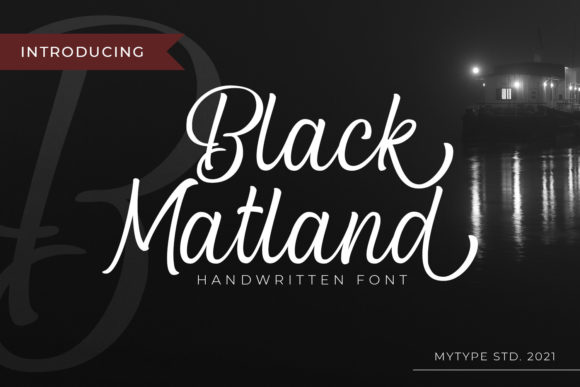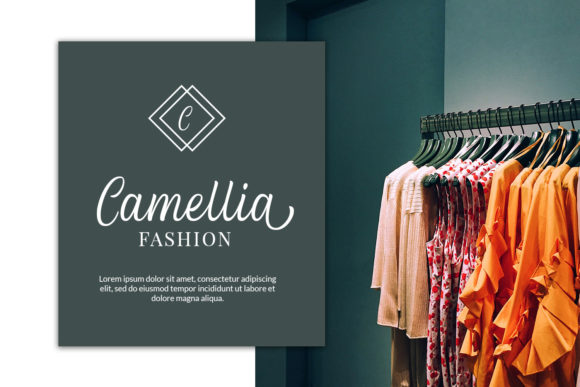
About Blcak Matland Font
“Black Matland” is a stylish and elegant handwritten font that adds a touch of sophistication to your designs. With its natural and classy letterforms, this font is perfect for creating a refined and original look in your projects.
The clean and flowing lines of “Black Matland” give it a sense of grace and elegance. Each character is meticulously crafted, with attention to detail and a focus on maintaining a balanced and harmonious appearance. The result is a font that exudes a sense of professionalism and refinement.
The versatility of “Black Matland” allows it to be used in a wide range of design applications. Whether you’re working on branding materials, wedding invitations, greeting cards, logos, or any other project that calls for an original and elegant style, this font will elevate your designs.
The natural and handwritten look of “Black Matland” adds a personal touch to your projects, creating a sense of warmth and authenticity. It is the perfect choice for conveying a sense of sophistication and refinement while still maintaining a down-to-earth and approachable feel.
“Black Matland” is easily legible and remains readable even at smaller sizes, ensuring that your message is effectively communicated. Its well-balanced letterforms make it suitable for both headlines and body text, giving you the flexibility to use it in various design elements.
Whether you’re designing for print or digital media, “Black Matland” will add a touch of elegance and originality to your projects. Its timeless and classy style makes it a versatile font that can be used in both contemporary and classic design contexts.
In summary, “Black Matland” is a stylish and elegant handwritten font that brings a touch of sophistication to your designs. With its natural and classy letters, this font is perfect for any of your lovely projects that require an original and refined style. Its versatility and legibility make it suitable for a wide range of design applications, ensuring that your message is effectively communicated with a touch of elegance.